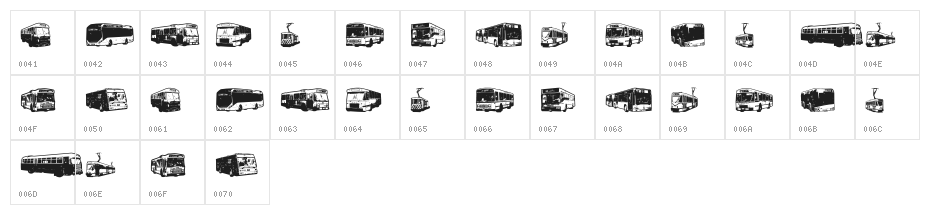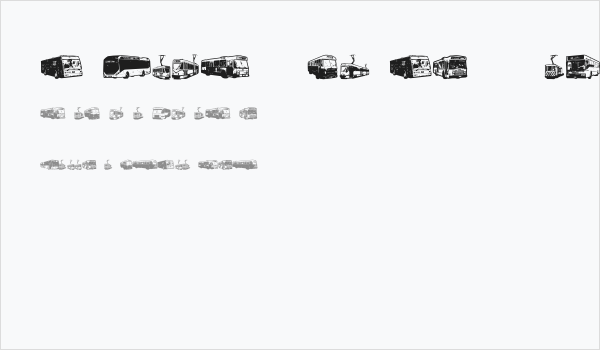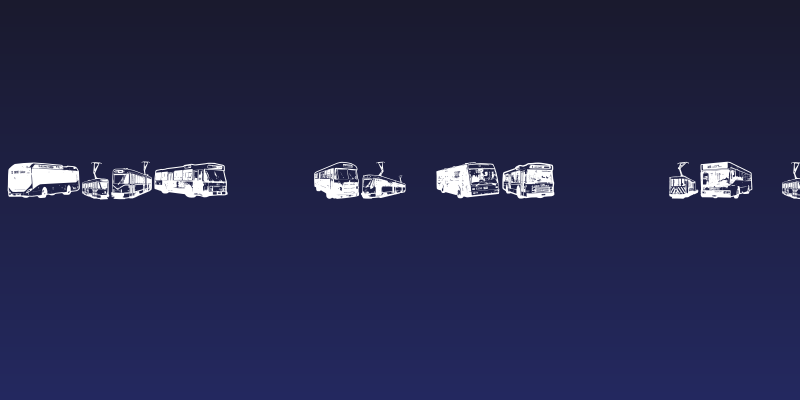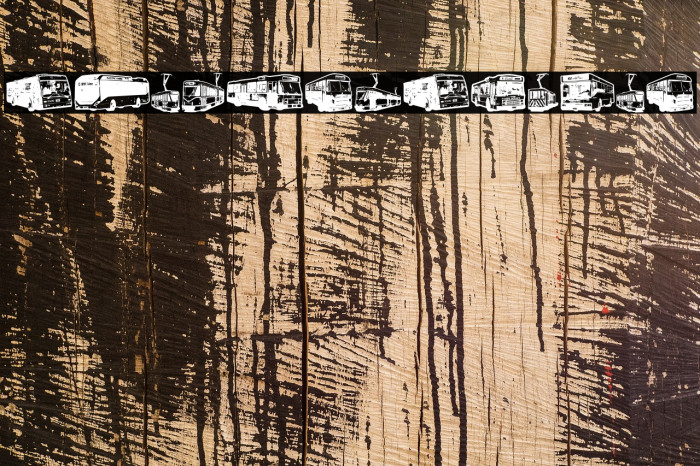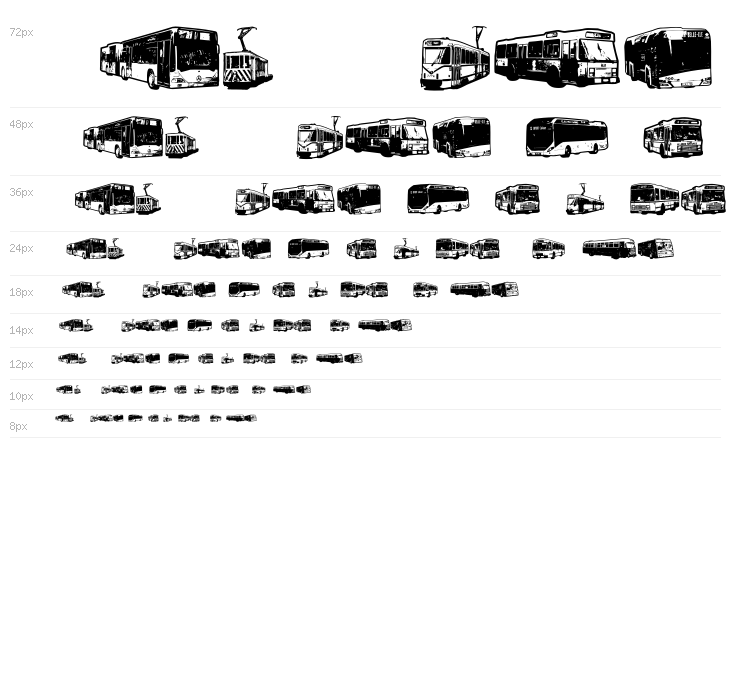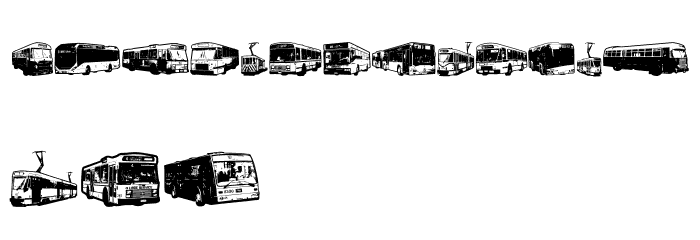
Public Transport Regular Font
Public Transport Regular Description
A pictogram font featuring detailed black-and-white illustrations of various public transport vehicles, such as buses and trams, with each character representing a different vehicle. The glyphs are highly illustrative and lack traditional typographic features.
| Overall Style | Decorative, Illustrative |
| Use Case | Icons, Themed graphics, Display purposes |
| Proposed Projects | Transport-themed posters, educational materials, infographics, signage, novelty designs. |